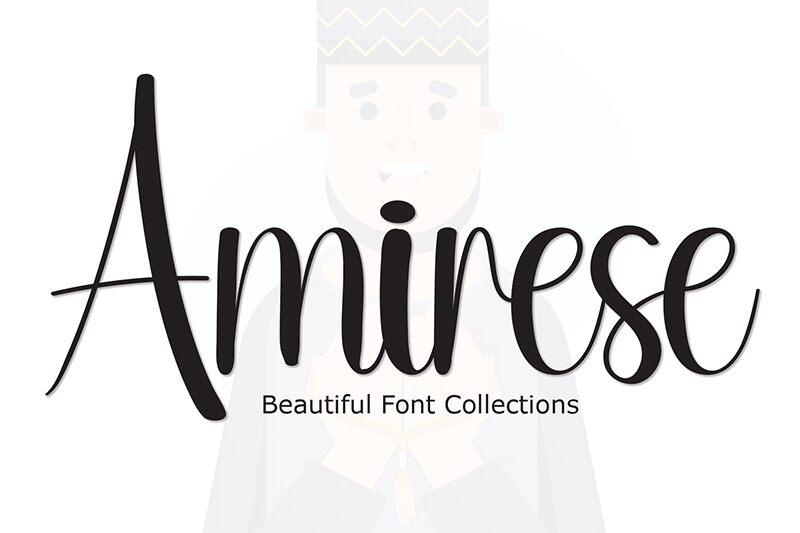
Amirese
Amirese font is a luxurious handwritten font designed by Andi Moz. It offers elegant flowing letters with features that reflect both modern calligraphy and casual elegance. The letters closely resemble the handwriting of skillful calligraphers and have soft lines and round edges to give a classic appearance with contemporary appeal.
Free for personal use, this wide font can be used for branding designs, packaging projects, labels, posters, magazine covers, apparel items, greeting cards, titles, invitations cards (wedding or others), social media posts or banners (Facebook, Instagram). With an artistic flair that can brighten any project it’s added to.